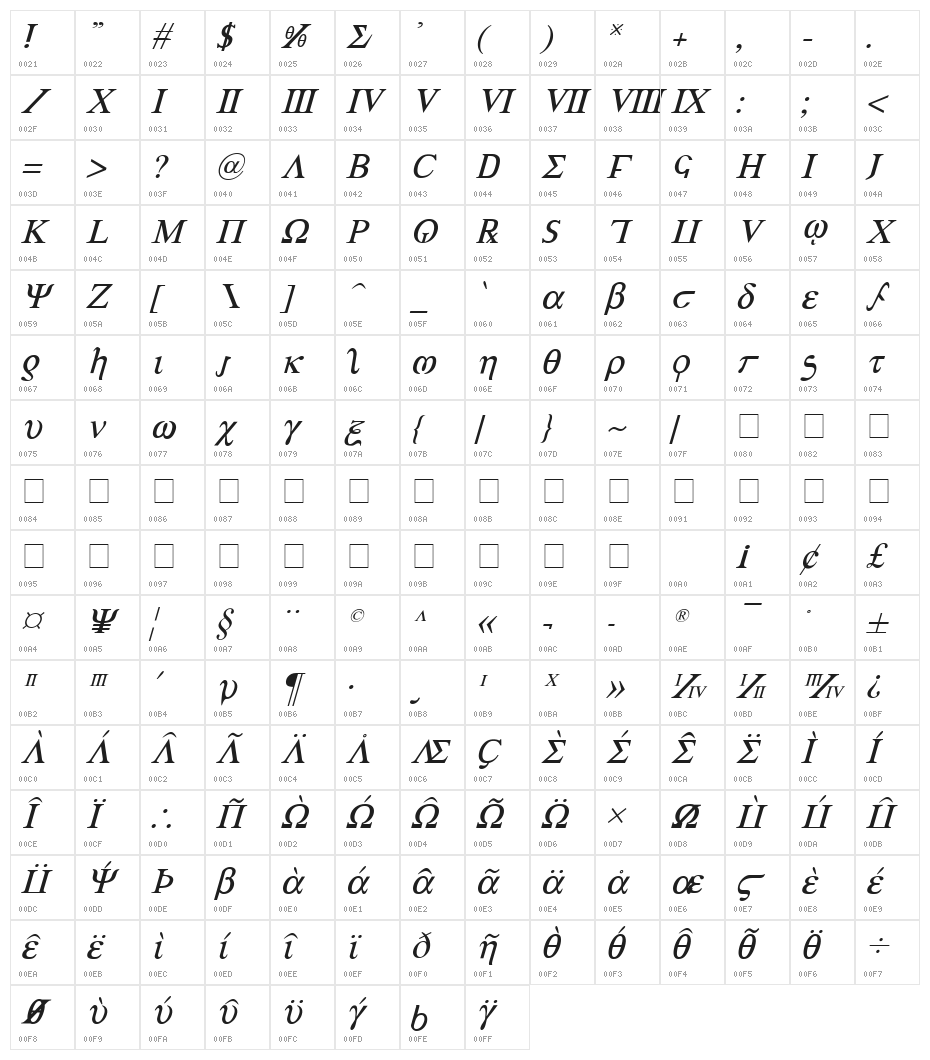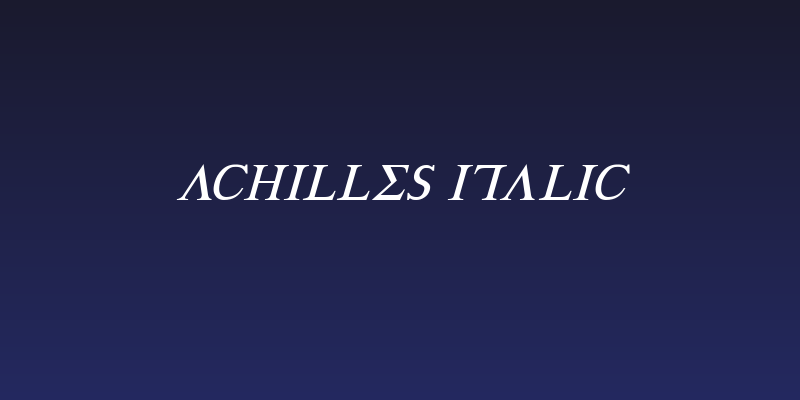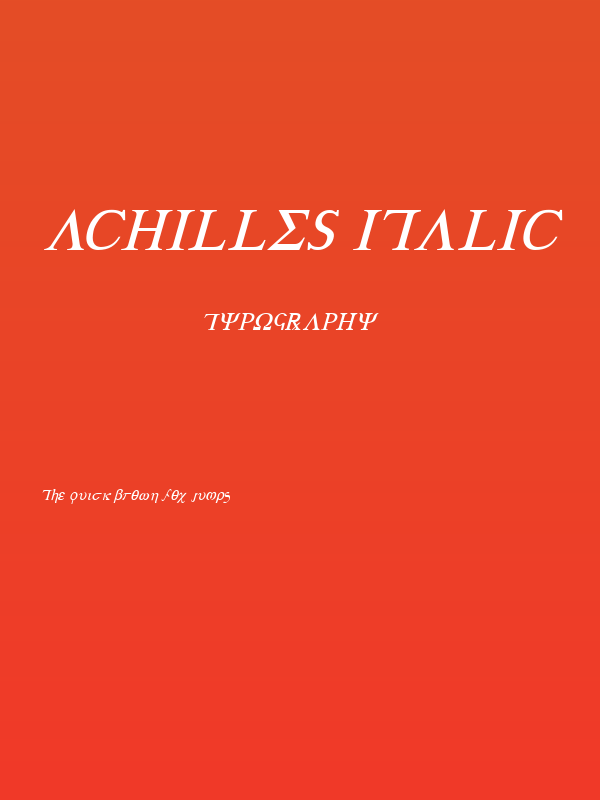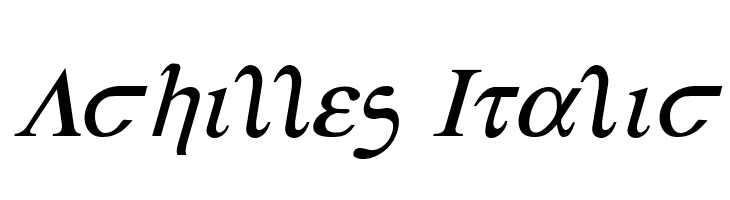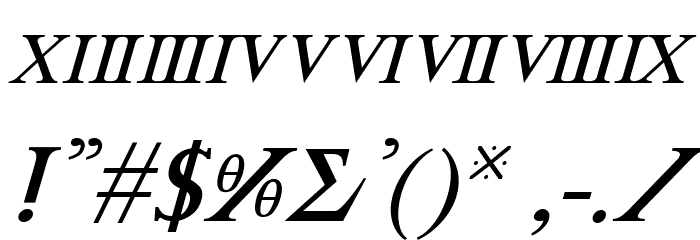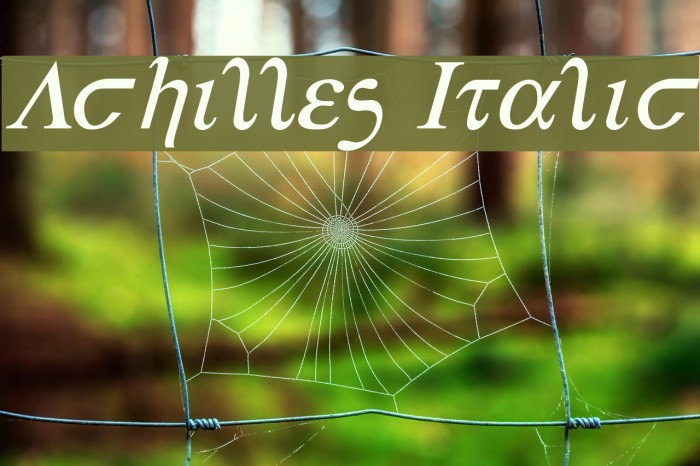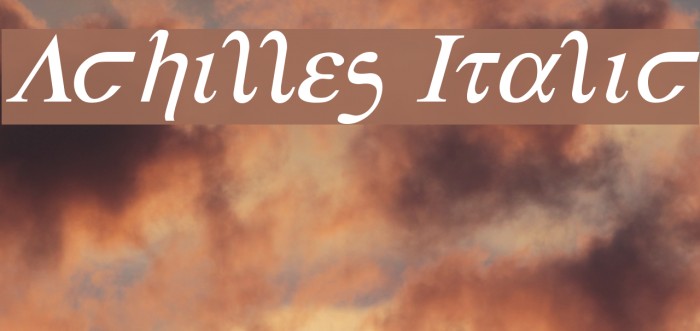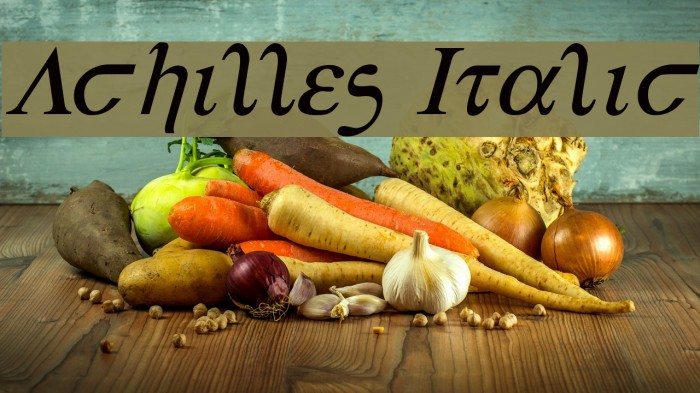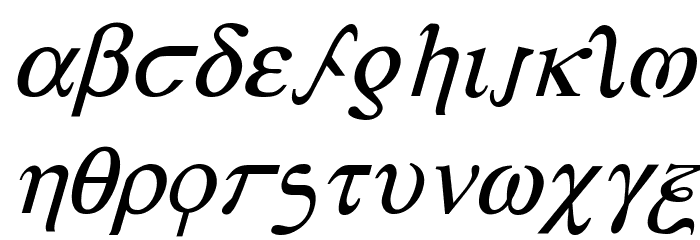
Achilles Italic Font
Achilles Italic Description
This font features a distinct italic style with a classical Greek influence, evident in its use of Greek characters alongside the Latin alphabet. The characters are elegantly slanted, providing a dynamic and sophisticated appearance. The strokes are moderately thick, offering a medium contrast that enhances readability while maintaining an artistic flair. The font's design is both traditional and timeless, making it suitable for projects that require a touch of historical elegance. The character spacing is normal, ensuring clarity and legibility across various text sizes.
| Overall Style | Classic |
| Use Case | Headlines, Body text, Logos |
| Proposed Projects | Ideal for historical documents, classical literature covers, educational materials, and branding that requires a touch of antiquity. |